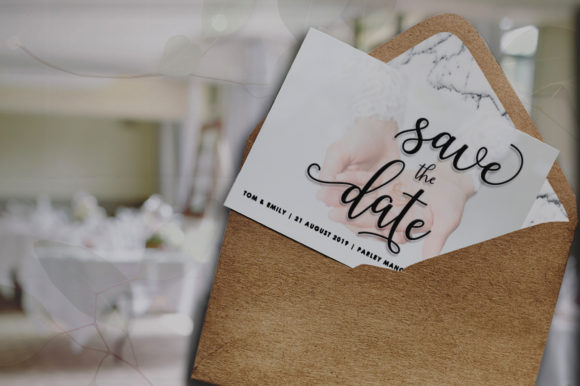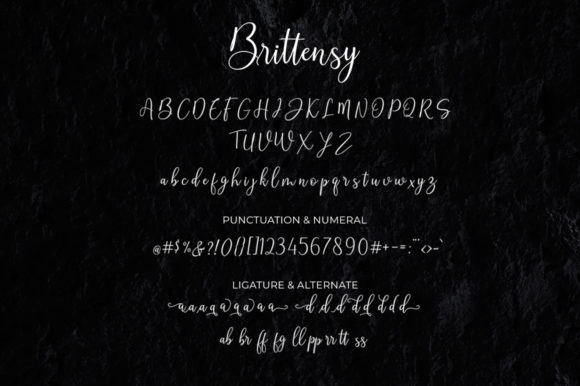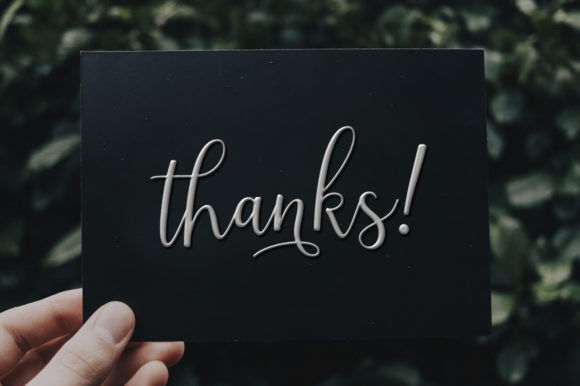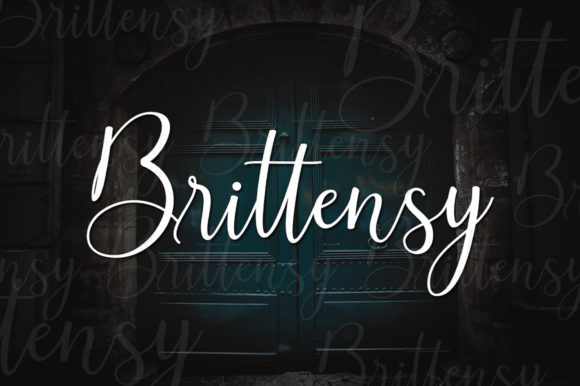
About Brittensy Font
Introducing “The Brittensy,” a modern calligraphy script font designed to bring an elegant and feminine feel to your projects. This font is more than just a typeface; it’s a design asset crafted with an elegant style, making it perfect for various applications where a touch of femininity is desired.
“The Brittensy” stands out with its modern calligraphy script that exudes sophistication and grace. Whether you’re working on branding, invitations, logos, or any design that requires an elegant and feminine touch, this font delivers with its distinctive and refined script.
Its versatility allows “The Brittensy” to seamlessly adapt to different design contexts. Branding materials benefit from the font’s elegant calligraphy, creating a memorable and stylish visual identity. Invitations and other feminine-themed designs crafted with “The Brittensy” carry a romantic and sophisticated vibe, adding a touch of grace to special occasions.
Whether you’re designing for digital or print, “The Brittensy” adds a level of refinement to your projects. Its modern calligraphy style makes it a perfect choice for creating a distinctive and upscale look in a variety of creative applications.
In summary, “The Brittensy” is more than just a font; it’s a design companion that brings a modern calligraphy script style with an elegant touch to your projects. Embrace its femininity for branding, invitations, logos, and more, and let “The Brittensy” elevate your designs with sophistication and grace.